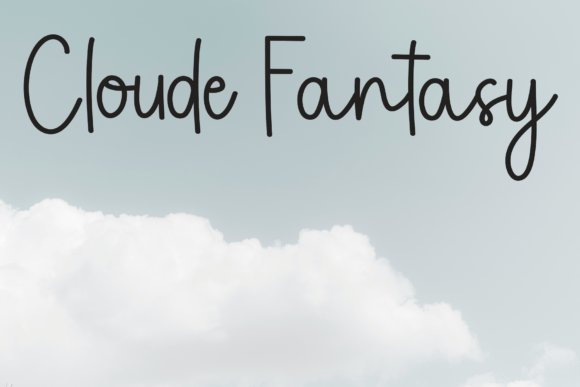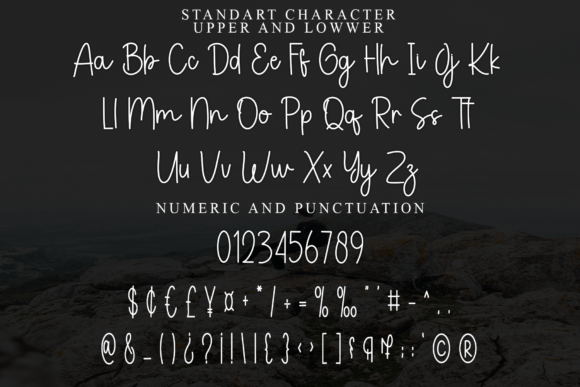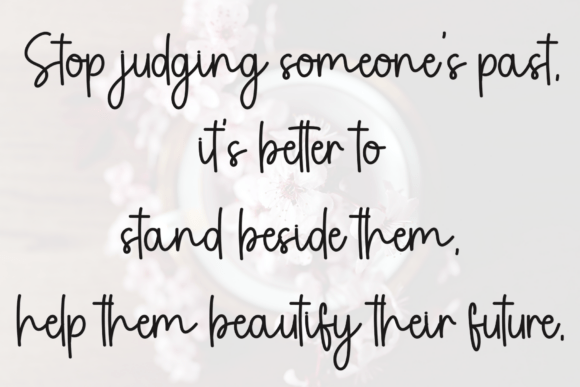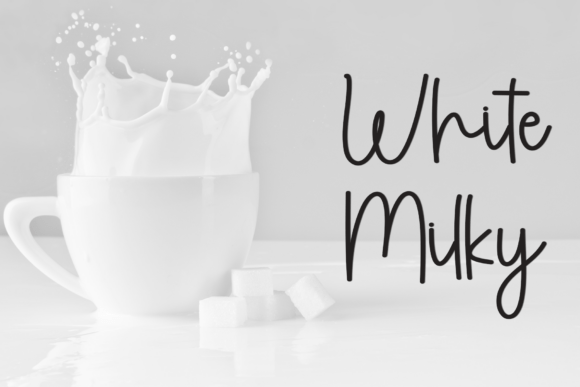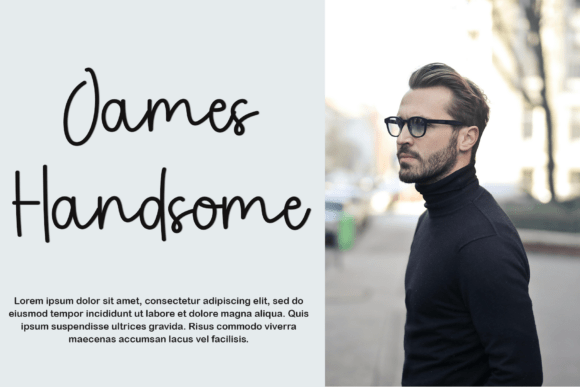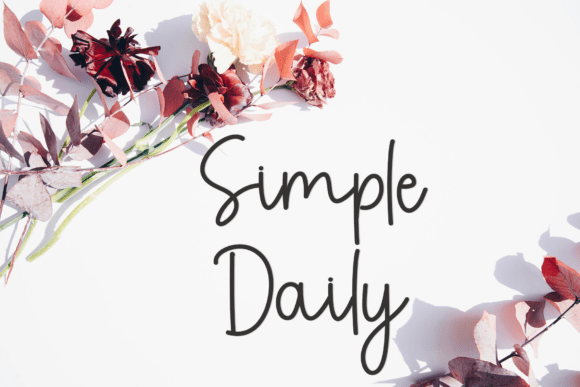
Discover the Charm of Elephant Font: A Unique and Versatile Typeface
Are you tired of using the same old fonts in your design projects? Look no further than Elephant Font, a beautiful and eye-catching typeface that is sure to make your creations stand out. With its soft, unique touch and distinctive strokes, Elephant Font is the perfect addition to any designer’s toolkit.
The Characteristics of Elephant Font
Elephant Font is a one-of-a-kind typeface that boasts a range of characteristics that set it apart from other fonts. Its soft, rounded edges and unique strokes give it a special character that is both meaningful and versatile. Whether you’re working on a design project, craft, or other creative work, Elephant Font is sure to add a touch of personality and flair.
One of the standout features of Elephant Font is its range of characters. With a wide variety of letters, numbers, and symbols to choose from, you’ll be able to create unique and eye-catching designs that capture the attention of your audience. Whether you’re working on a logo, brochure, or social media graphic, Elephant Font has got you covered.
In addition to its technical compatibility, Elephant Font is also suitable for a wide range of artistic and creative fields. Whether you’re a graphic designer, crafter, or artist, Elephant Font is the perfect choice for adding a touch of personality and style to your work.
Why Choose Elephant Font?
So why choose Elephant Font over other typefaces? Here are just a few reasons why designers and crafters are falling in love with this unique and versatile font:
- Unique and eye-catching design: Elephant Font’s soft, rounded edges and distinctive strokes make it a standout typeface that is sure to capture the attention of your audience.
- Wide range of characters: With a wide variety of letters, numbers, and symbols to choose from, Elephant Font gives you the flexibility to create unique and eye-catching designs.
- Ideal for creative projects: Whether you’re working on a design project, craft, or other creative work, Elephant Font is the perfect choice for adding a touch of personality and style.
How to Use Elephant Font in Your Designs
Ready to start using Elephant Font in your designs? Here are a few tips to get you started:
- Experiment with different sizes and colors: Elephant Font looks great in a range of sizes and colors, so don’t be afraid to experiment and find the combination that works best for your design.
- Pair it with other fonts: Elephant Font pairs well with a range of other typefaces, so try combining it with other fonts to create a unique and eye-catching design.
- Use it for headings and titles: Elephant Font’s bold and eye-catching design makes it perfect for headings and titles, so try using it to add a touch of personality to your design.
In conclusion, Elephant Font is a unique and versatile typeface that is perfect for designers and crafters who want to add a touch of personality and style to their work. With its soft, rounded edges and distinctive strokes, Elephant Font is sure to capture the attention of your audience and make your designs stand out. Whether you’re working on a design project, craft, or other creative work, Elephant Font is the perfect choice for adding a touch of charm and character.